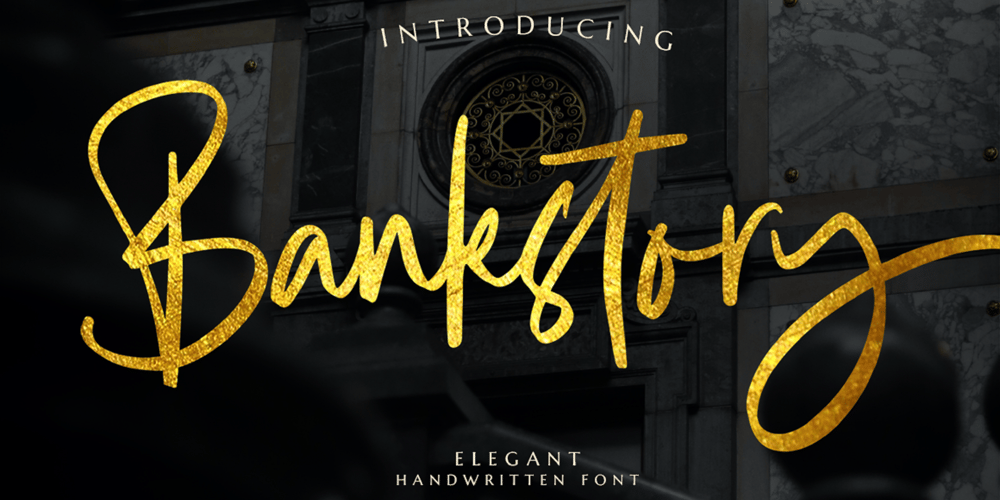
Bankstory
Bankstory font
Bankstory Font Family was designed by Heri Imanudin and published by Krafted. Bankstory contains 1 styles and family package options. Ready to enchant your audience and enhance your branding? Introducing Bankstory – An Elegant Handwritten Font. This font is all about Elegance, Style, Luxury, Professionalism, and Authority. With elegance and passion edged into every curve and twist of this handwritten font – you’ll be sure to reign in sales and make lasting impressions. Bankstory can be used for a variety of different content needs such as headings, logos, business cards, printed quotes, cards, packaging, resumes, and even your website or social media branding. Let the world see your ideas with Bankstory – An Elegant Handwritten Font. What you’ll get: Multilingual & Ligature Support Contextual Alternatives Full sets of Punctuation and Numerals Compatible with: Adobe Suite Microsoft Office KeyNote Pages Software Requirements: The fonts that you’ll receive in the pack are widely supported by most software. In order to get the full functionality of the selection of standard ligatures (custom-created letters) in the script font, any software that can read OpenType fonts will work. We hope you enjoy this font and that it makes your branding sparkle! Feel free to reach out to us if you’d like more information or if you have any concerns.